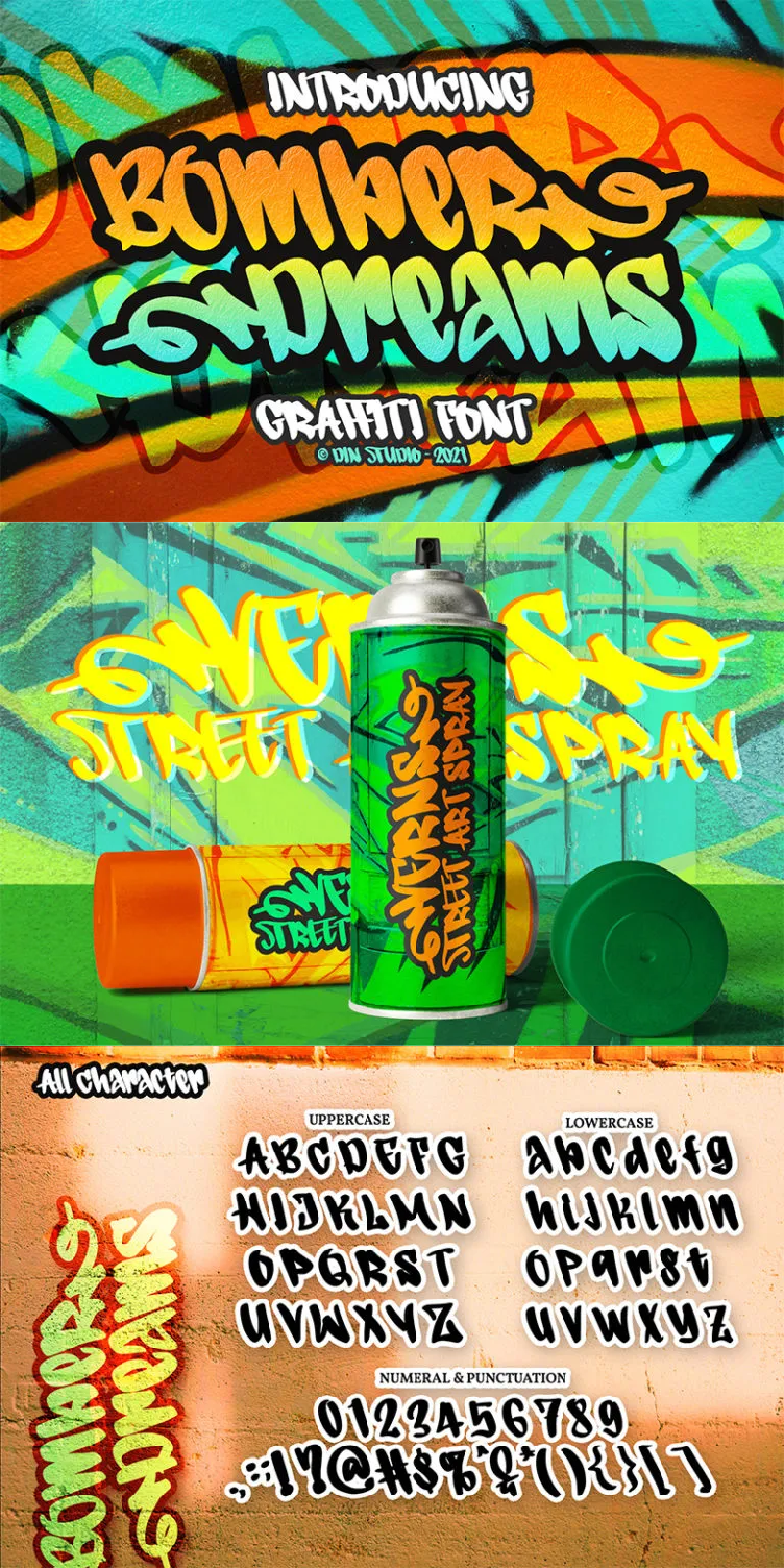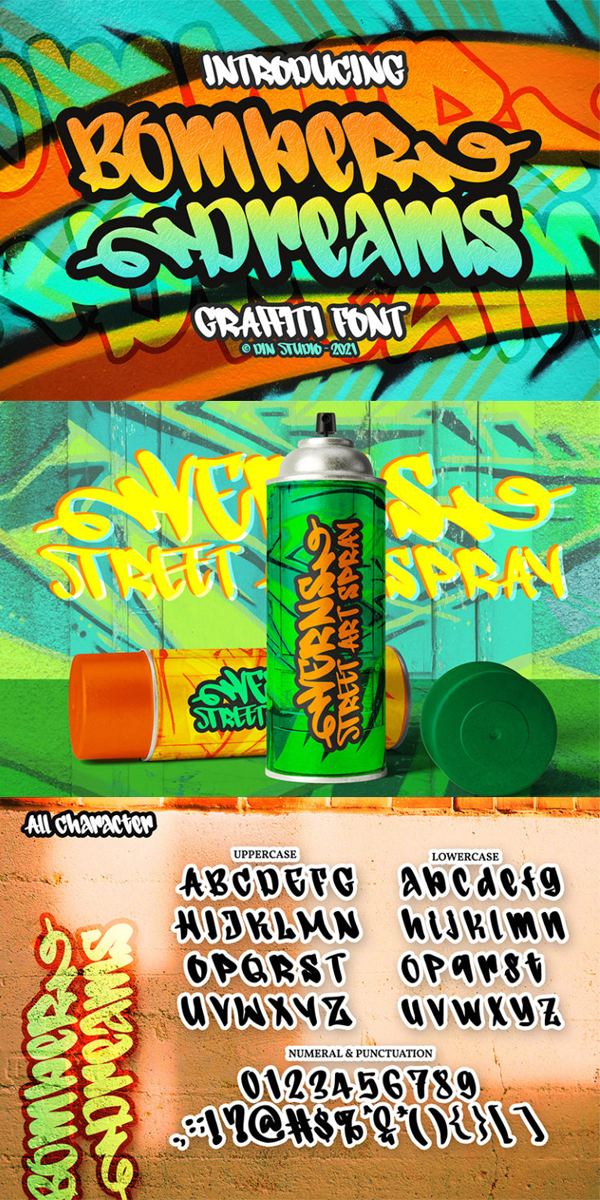
BOMBER DREAMS Font
About BOMBER DREAMS
Bomber Dreams – A Grafiti Font
Use this cool and modern graffiti font to breathe a street life vibe into your projects. Bomber Dreams is perfect for logos, printed quotes, cards, packaging, website or social media branding, and many more!